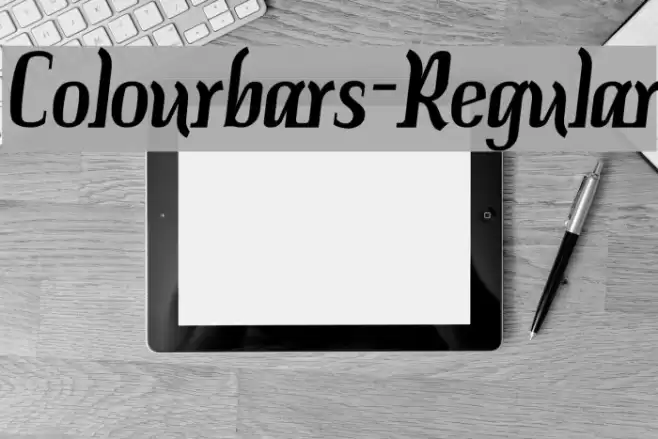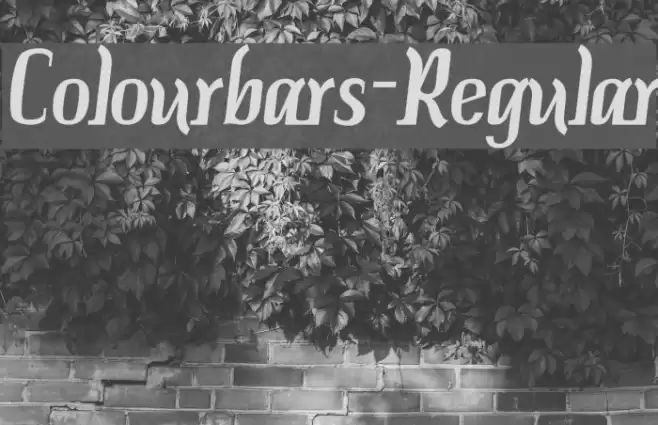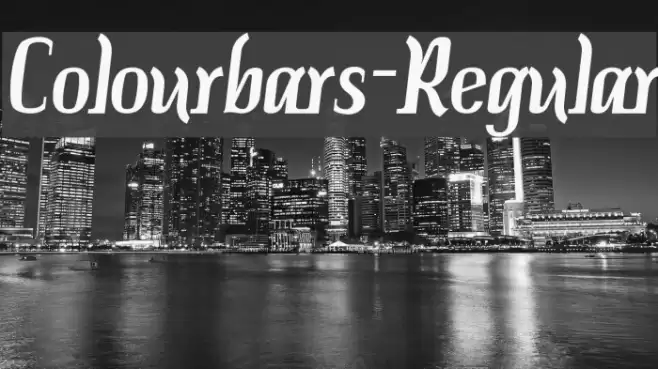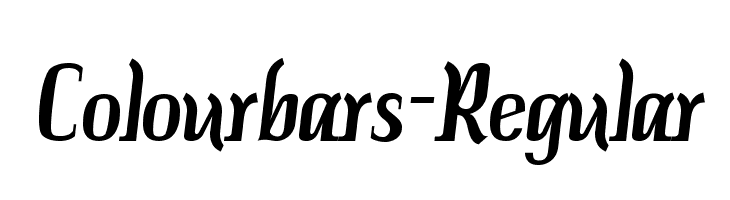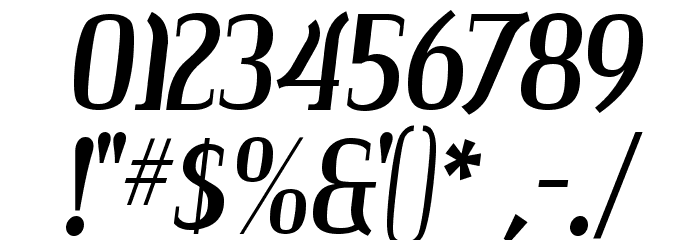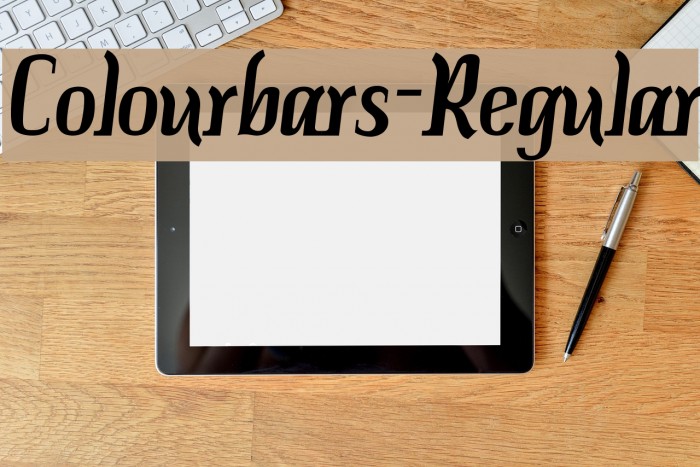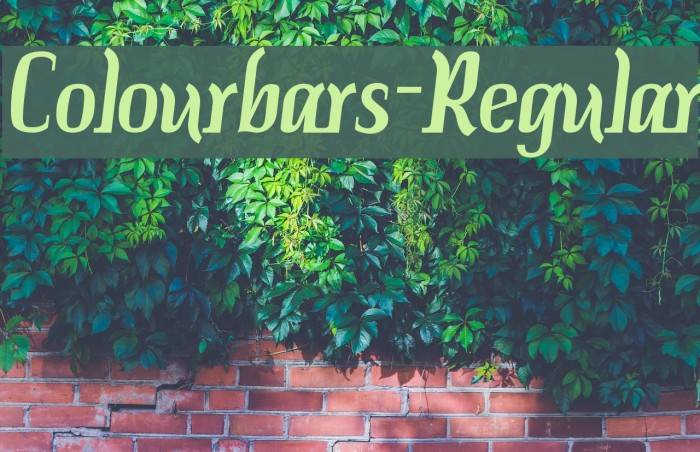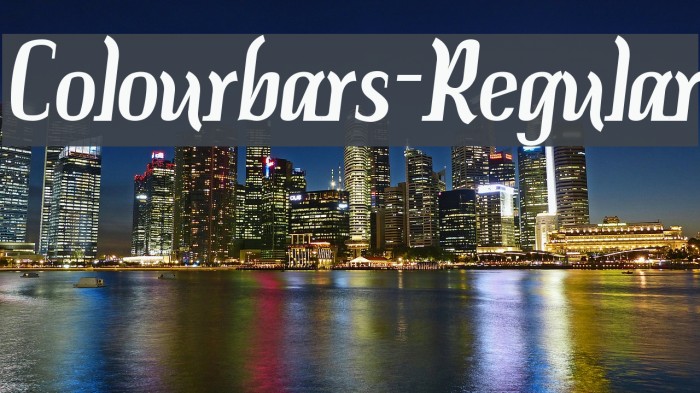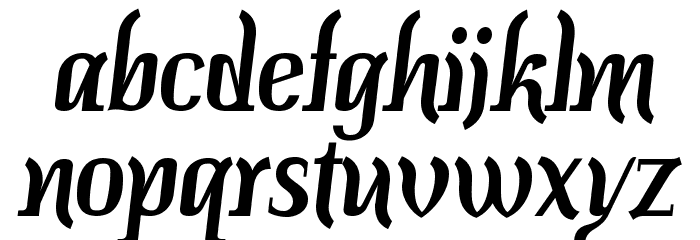
Colourbars-Regular Font
Colourbars-Regular Description
This font features a dynamic and flowing style that combines elements of both script and serif fonts. The uppercase letters exhibit a bold presence with slight slants, giving them a sense of movement and elegance. The lowercase letters maintain a consistent style, with smooth curves and a slightly condensed appearance. Numbers are designed with a similar flair, ensuring readability while maintaining the font's unique character. Special characters are well-integrated, providing versatility for various design needs. Overall, this font exudes a modern yet classic feel, making it suitable for a wide range of creative projects.
A dynamic and flowing font combining script and serif elements from Uncategorized fonts.
- Proposed Projects: Ideal for branding, packaging, invitations, and editorial design.
- Use Case: Logos, Headlines, Invitations